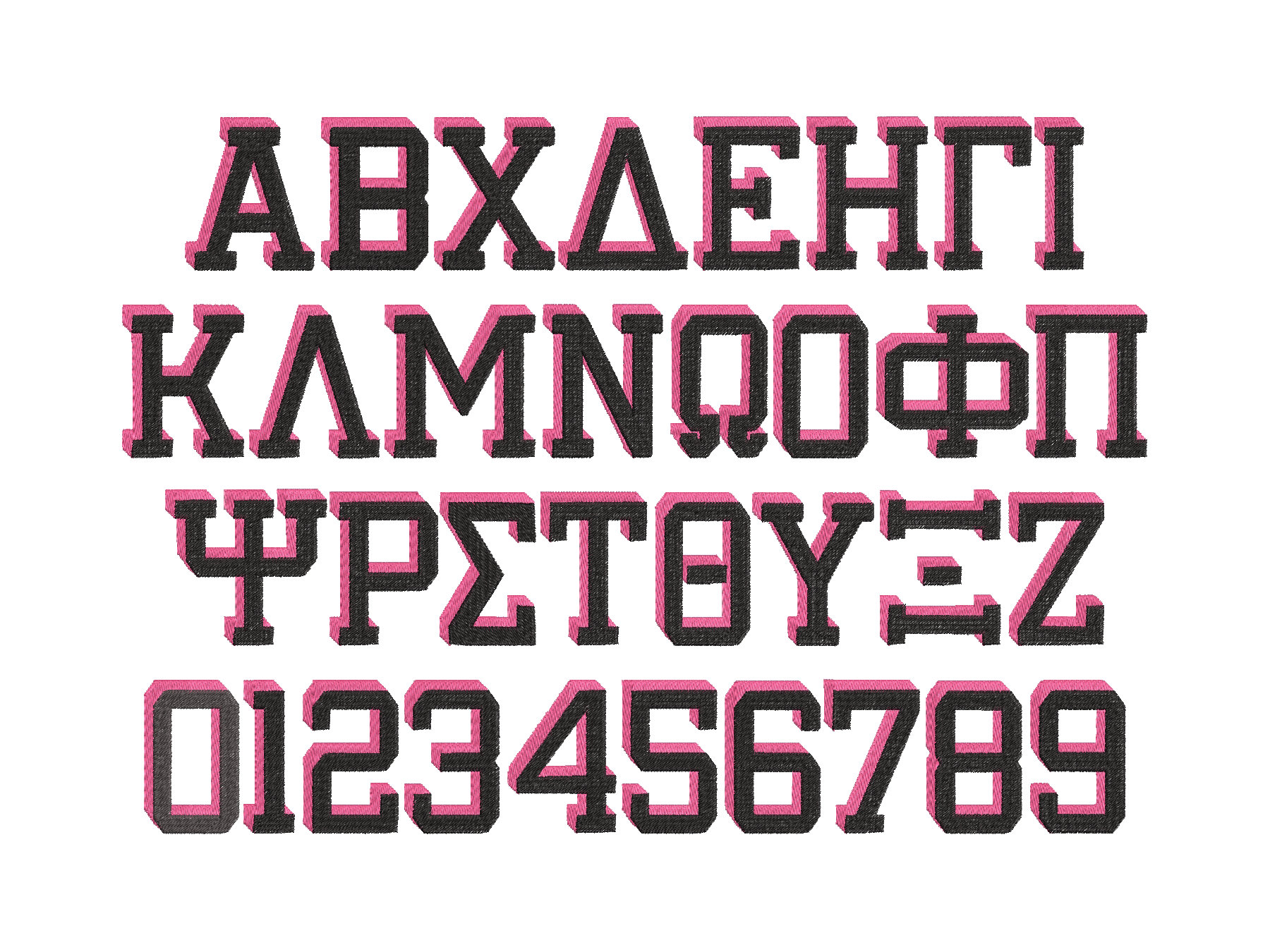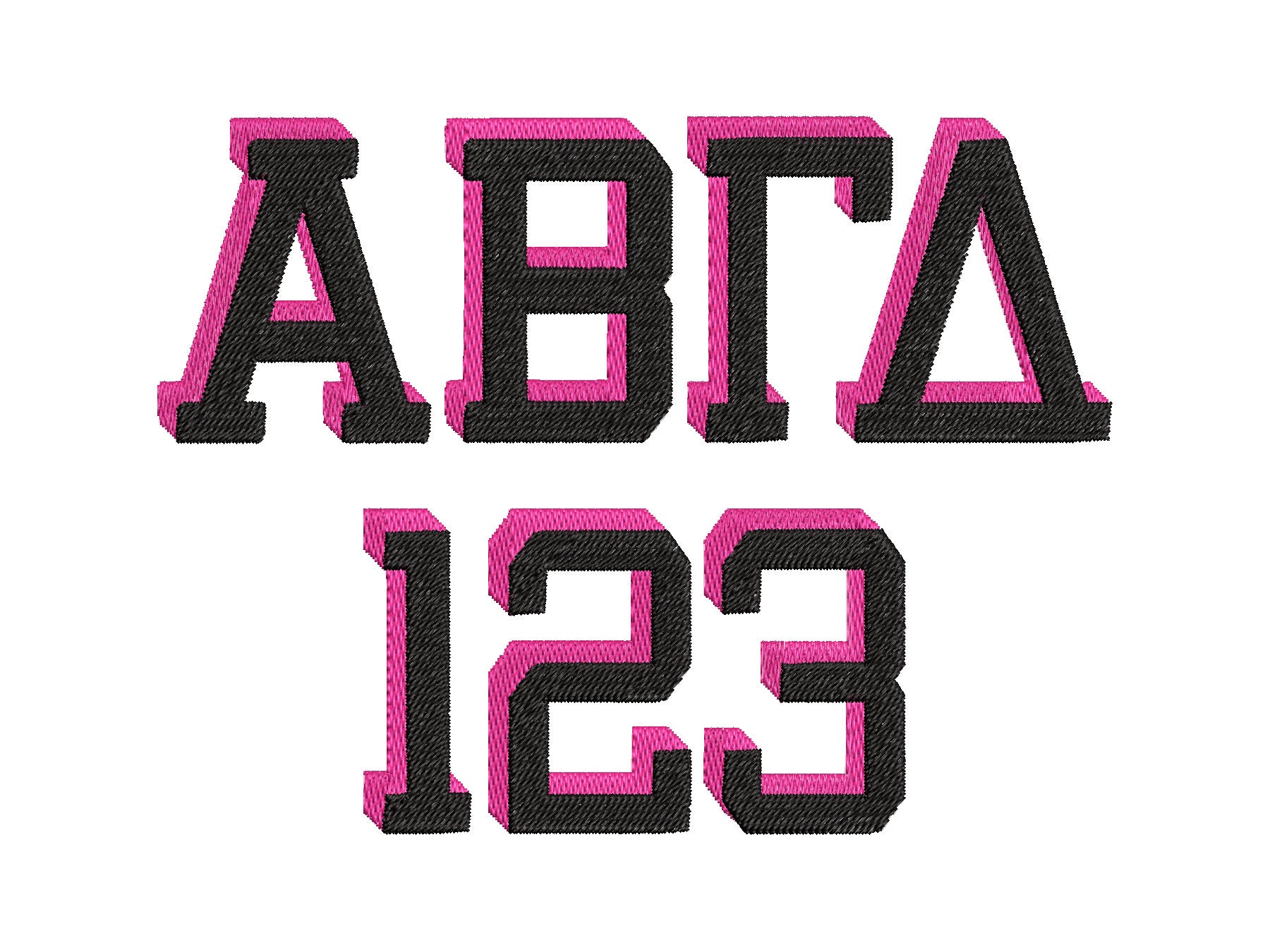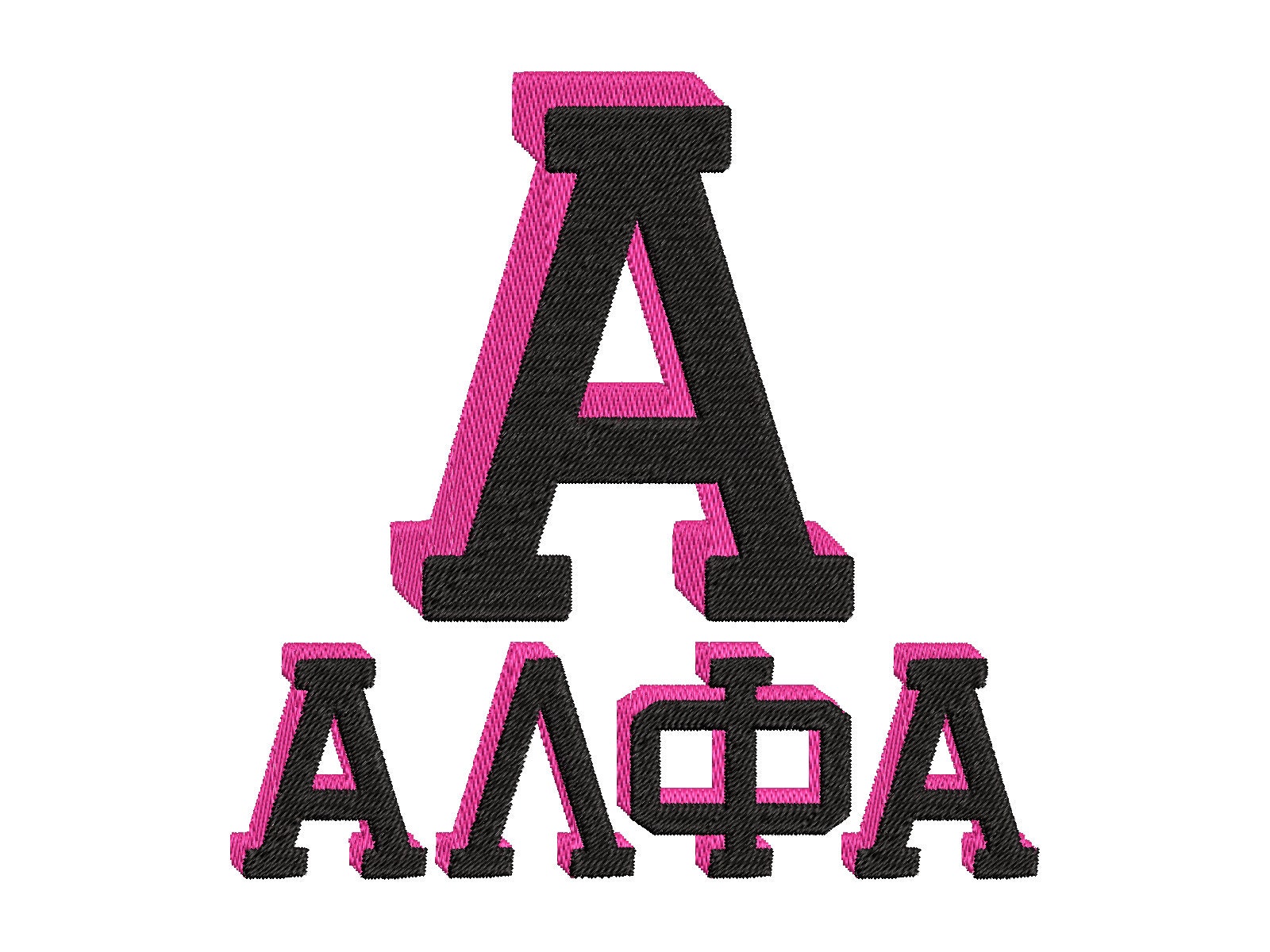
Varsity block type GREEK Font Shadow alphabet fill stitch machine embroidery designs in multiple sizes letters numbers with shadow monogram
Whole GREEK alphabet uppercase letters and numbers.
STITCHED OUT GREAT! HIGHLY RECOMMEND THIS FONT FOR YOUR SORORITY ITEMS
such a great font!! Loved how well it stitched out!